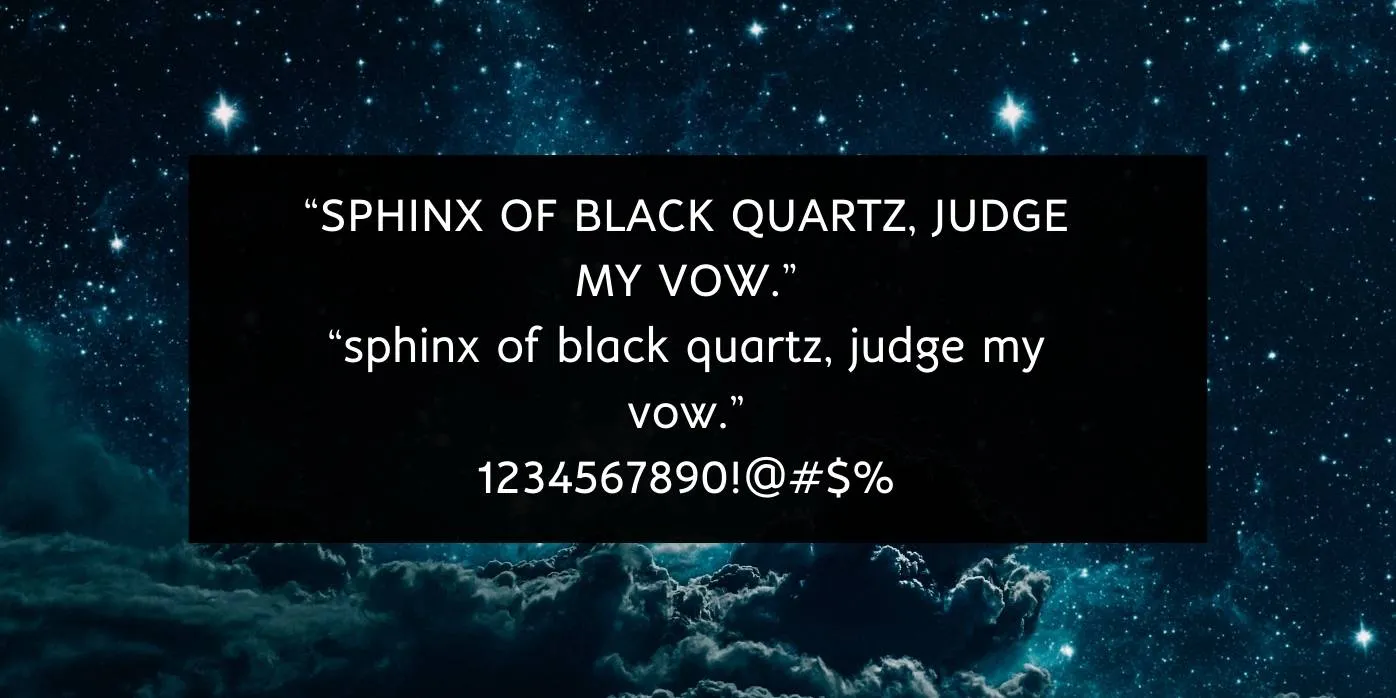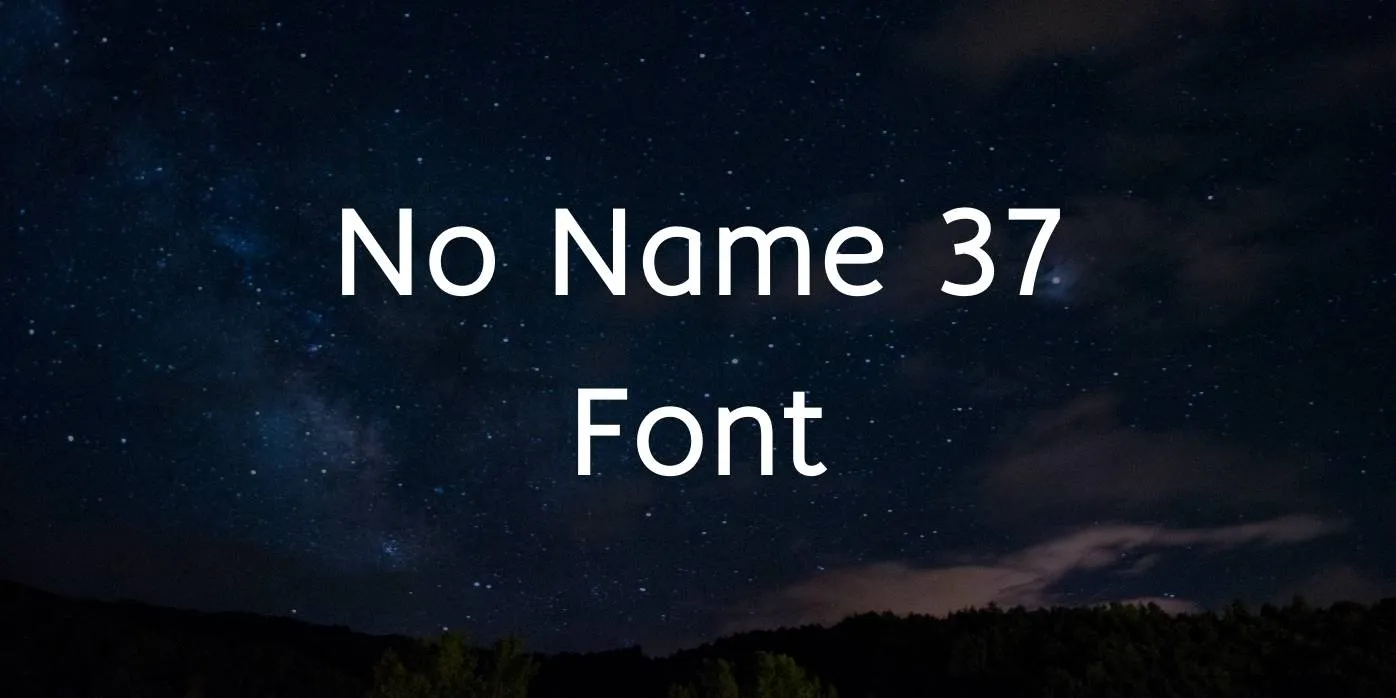
No Name 37 Font
No Name 37 Font is a sans serif typeface created by Swiss designer Max Miedinger in 1957. The font takes its name from the 37th International Congress of Typographic Designers, which was held in Zurich that year. This Font is characterized by its clean, modern lines and its lack of decorative elements. The font is often used for titles and headings, as it is easy to read and looks good in small sizes.
This Font is available in a variety of weights and styles, including light, regular, bold, and black. It is also available in both italic and oblique versions. This Font is used by many major brands. Furthermore, it is one of the most popular sans serif fonts in the world.